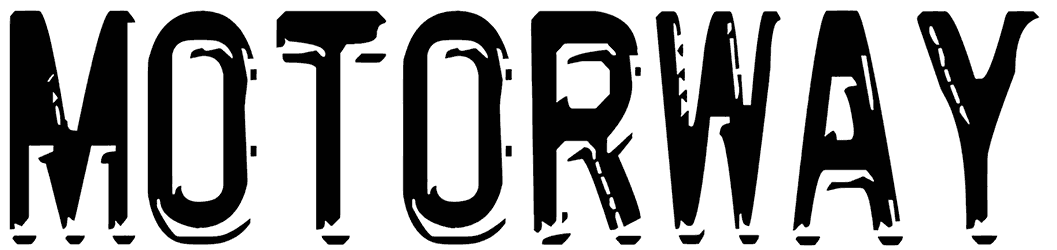
Motorway Font
With the help of an all-caps condensed font such as Motorway, you can easily grab the attention of the audience and impress them with the magical quality of your street posters, video game brochures, menus, social media posts, and logos. This fancy font has the real potential to bring a sense of classic, grunge, or tenderness to your graphic content.